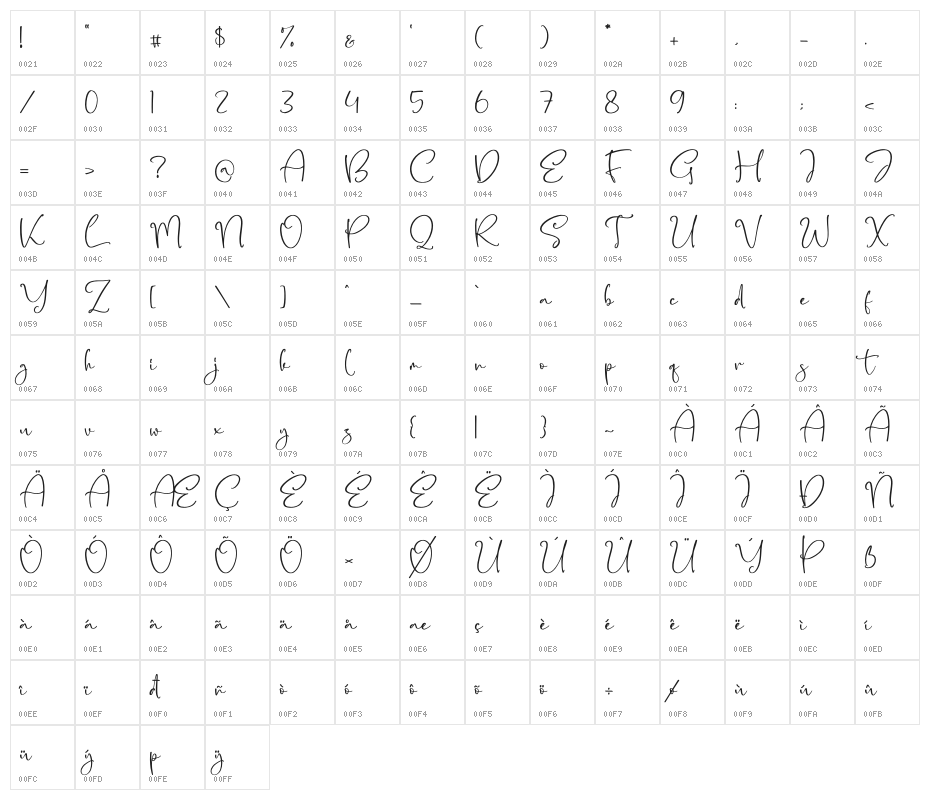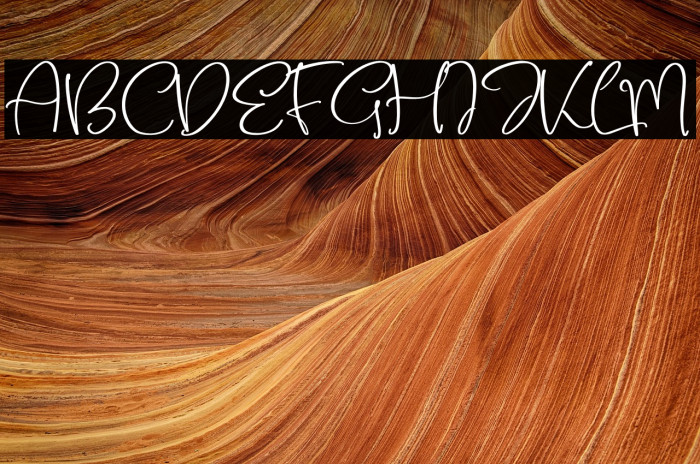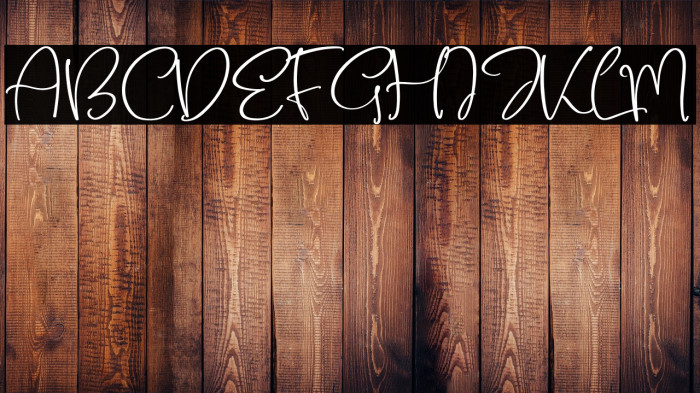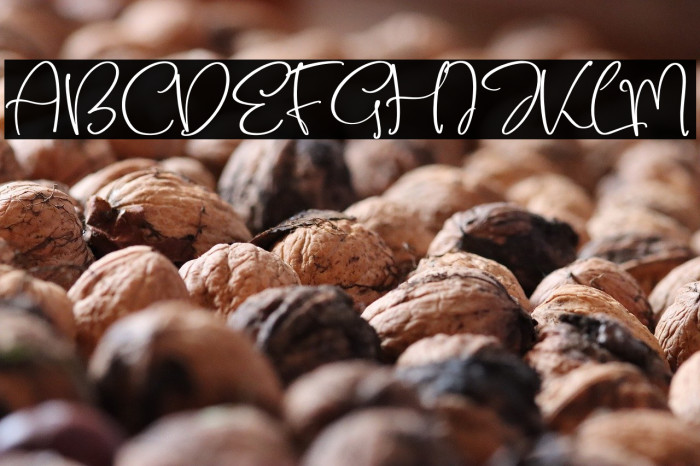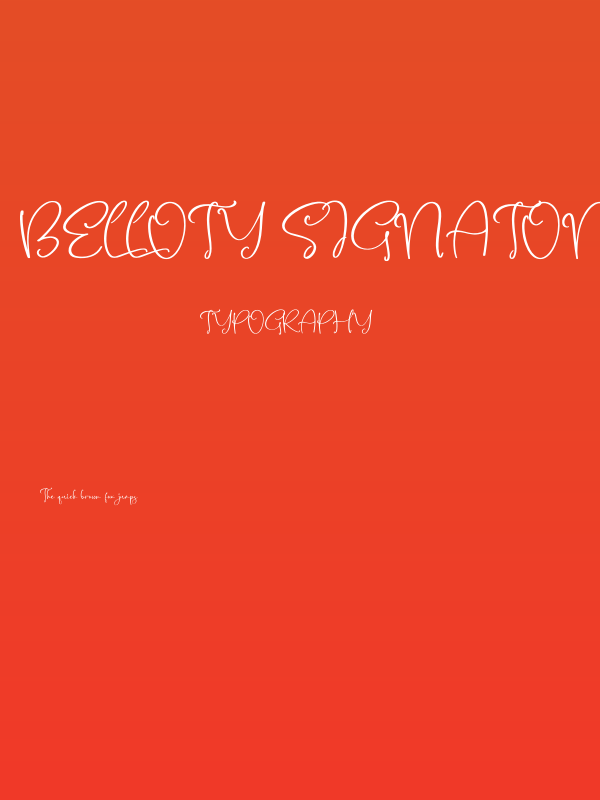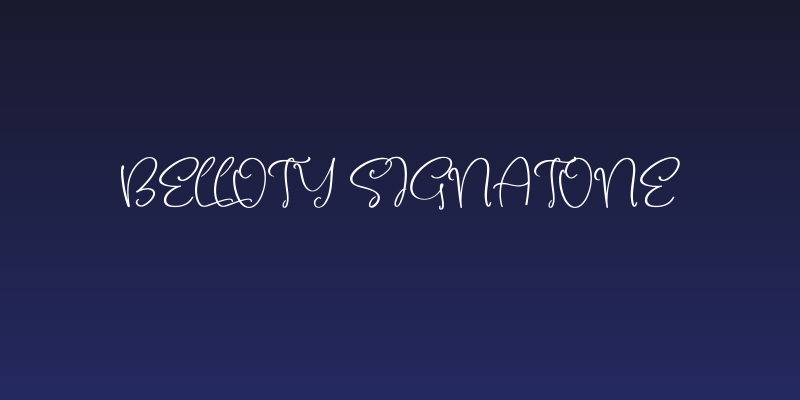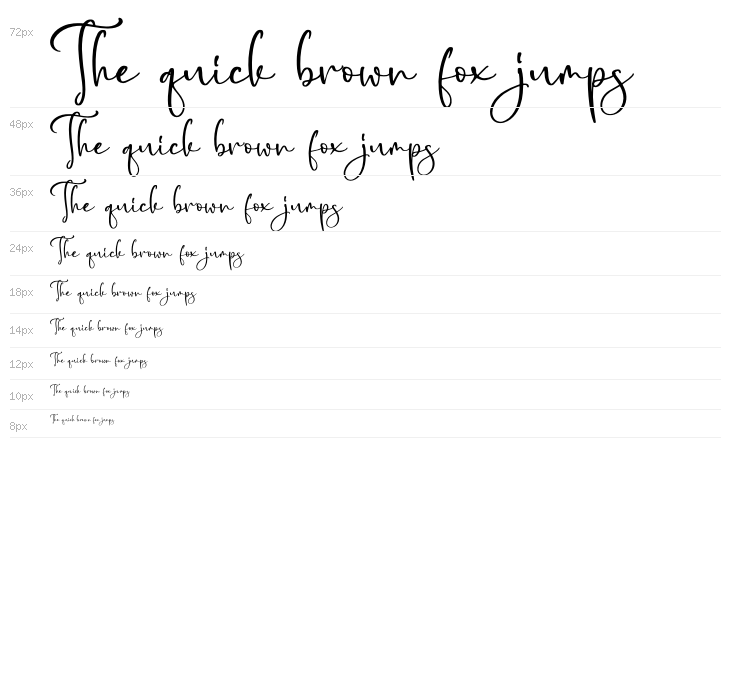
Belloty Signatone Font
Belloty Signatone Description
A flowing, handwritten script font with elegant, looping strokes and a casual yet refined appearance. The characters are slightly irregular, mimicking natural handwriting, with tall ascenders and deep descenders. The lines are thin and consistent, giving a delicate and airy feel.
| Overall Style | Decorative, Elegant, Casual |
| Use Case | Logos, Invitations, Social media, Greeting cards |
| Proposed Projects | Wedding invitations, personal branding, greeting cards, social media graphics, boutique logos. |